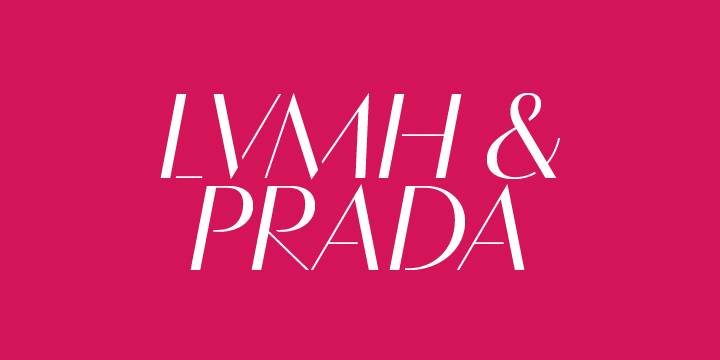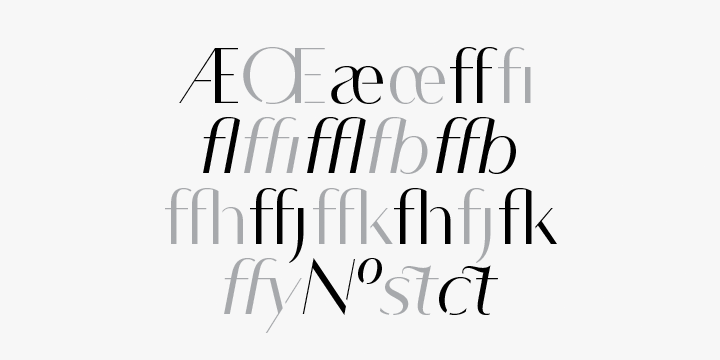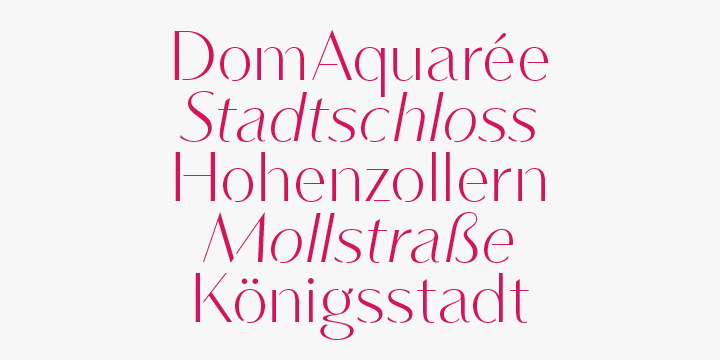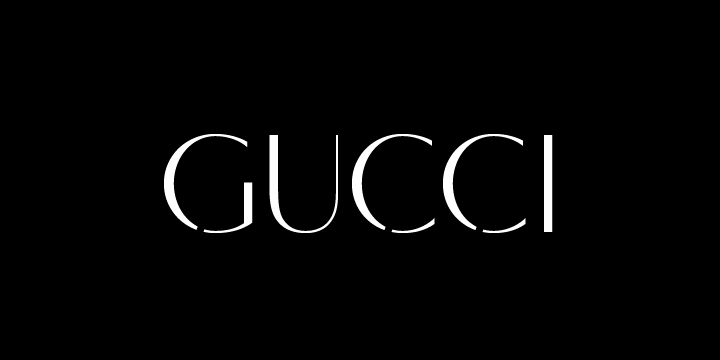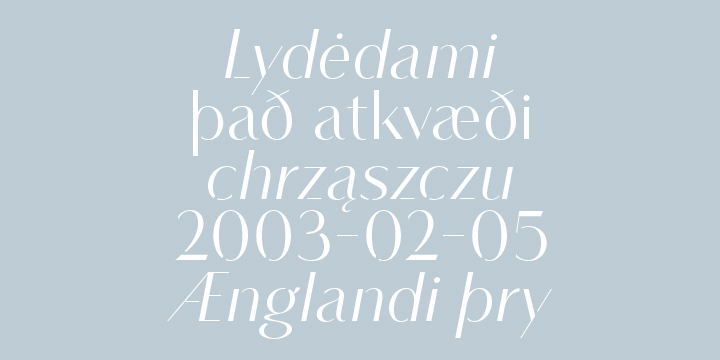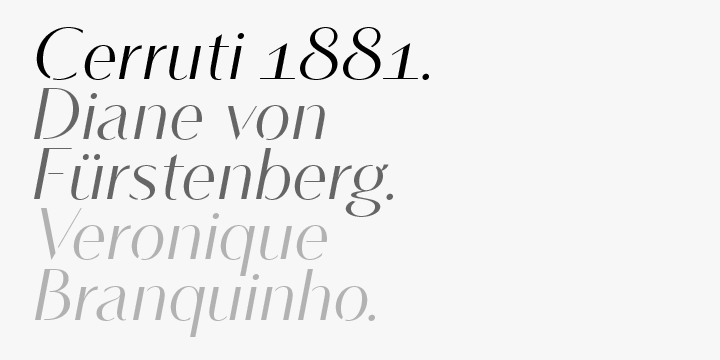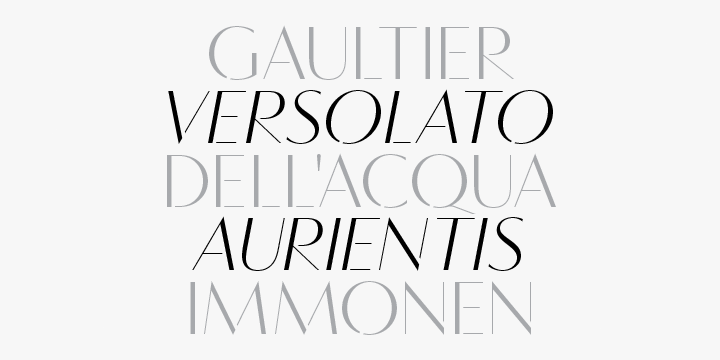
Vanitas Stencil
Font Family by AE Type
Stylistically, Vanitas Stencil's alluring, sophisticated sensibility is directly inspired by high fashion. The upright styles are complimented by a pairing of optically adjusted true italics, which were purposefully adapted to retain the sharpness of their counterparts. Abandoning traditionally executed cursive italic letterforms retains Vanitas Stencil's distinct characteristic through each style.
Features include:
- Standard Ligatures set including 'f' ligatures (fb, ff, fh, fi, fj, fk, fl ffb, ffh, ffi, ffj, ffk, ffl, ffy, ae, oe, AE, OE)
- Discretionary Ligatures set including (st, ct, No)
- Alternate characters (H, A, AE, Q, $, h circumflex,